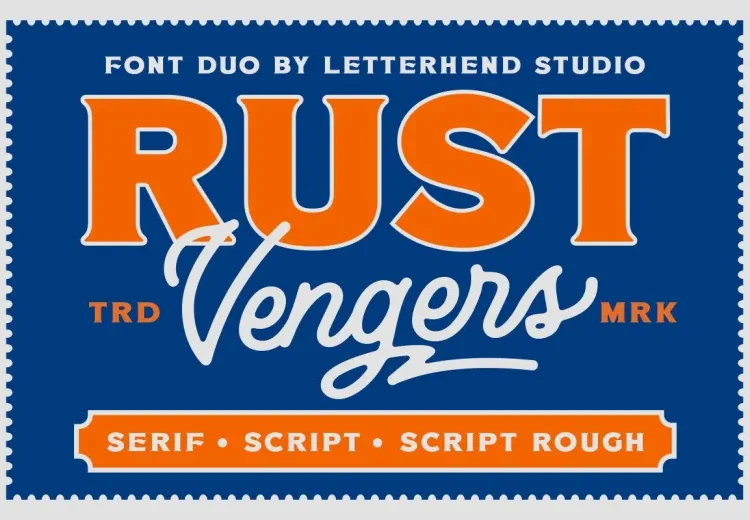
Rust Vengers Font Duo
Rust Vengers is a versatile two-font display set that combines a sleek monoline script font with a bold display serif font, infused with a hint of sportiness. This unique combination creates a dynamic and visually appealing typeface duo, perfect for a wide range of design applications.
The harmonious blend of the monoline script and display serif fonts makes Rust Vengers ideal for creating eye-catching logos, striking titles, and impactful advertisements. Its adaptability also extends to more formal contexts, such as invitations, labels, and stationery, where it can add a touch of modern flair. Additionally, it works seamlessly in fashion and makeup branding, book covers, magazines, greeting and wedding cards, packaging, and various other advertising purposes.